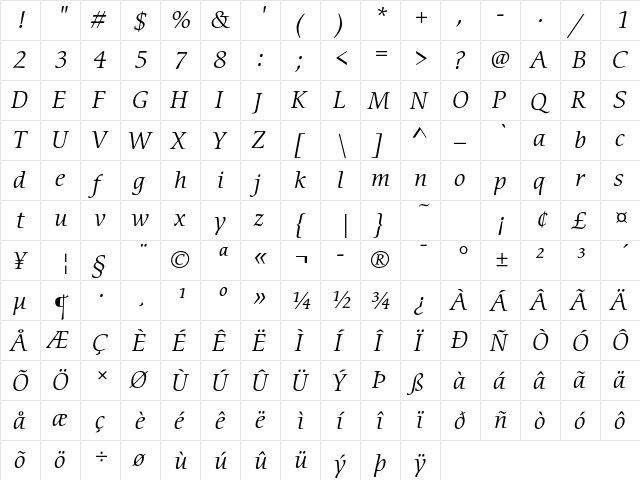
ITC Cerigo Std Book Italic Font Preview
ITC Cerigo Std Book Italic
| Designer | Jean-Renaud Cuaz |
Design Context for ITC Cerigo Std Typeface
ITC Cerigo Std takes a measured approach to typography — its balanced proportions and neutral character make it a reliable workhorse for both digital and print work. The dynamic lean of this cut emphasises speed and emphasis in any layout.
Pro Tip: Use ITC Cerigo Std for emphasis, pull quotes, and subheadings where its slanted energy can add rhythm to the layout.